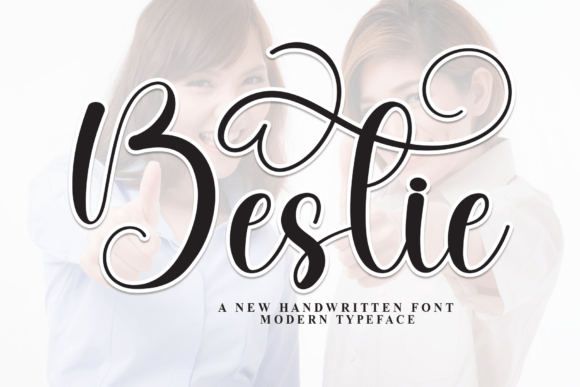
The Bestie Font: Elevate Your Design with Elegance and Flair
I’ll never forget the moment I stumbled upon the Bestie font while working on a branding project for a wellness client. I had spent hours scouring the internet for the perfect typeface, but nothing seemed quite right. That was until I saw Bestie – its elegant, handwritten aesthetic immediately caught my eye, and I knew I had found the one. In this article, I’ll share my love for this beautiful font, its features, and how to make the most of it in your designs.
An Honest Review of Bestie Font
- ✨ Elegant and rhythmic design with a traditional slanted axis
- ✅ Beautiful contrast between thick downstrokes and delicate hairlines
- 💫 Dramatic, sweeping flourishes on characters for a customized feel
- 🎨 Perfect for boutique brand identities, wellness branding, lifestyle photography watermarks, and sentimental social media content
While Bestie is an amazing font, there are a few things to keep in mind:
- ⚠️ Some characters may require manual adjustment for optimal spacing
- 🤔 Limited use of uppercase letters, but the font makes up for it with beautiful stylistic alternates
The Story Behind Bestie Font
Bestie was designed with the intention of creating a modern, elegant typeface that captures the essence of handwritten scripts. The designer aimed to craft a font that would be both beautiful and versatile, suitable for a range of applications from branding to social media content. Inspired by traditional calligraphy and modern digital design, Bestie brings a touch of sophistication and whimsy to any project.
Q: What makes Bestie font unique?
A: Bestie font is unique due to its elegant and rhythmic design, traditional slanted axis, and beautiful contrast between thick downstrokes and delicate hairlines.
Q: Does Bestie font support OpenType features?
A: Yes, Bestie font supports OpenType features, including stylistic alternates, swashes, and glyphs, allowing for a high degree of customization.